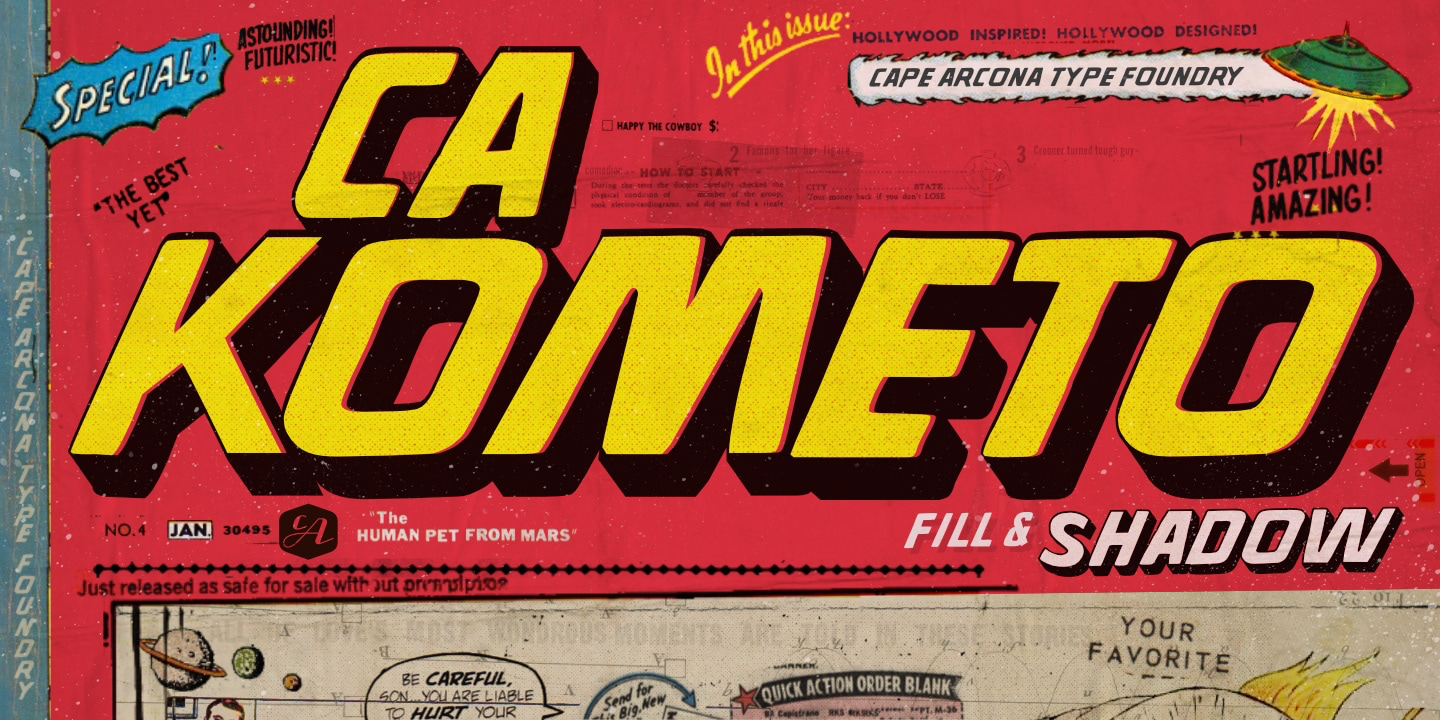
CA Kometo Font is perfect for space exploration graphics, astronomy education materials, sci-fi movie titles, planetarium presentations, rocket company branding, cosmic event promotions, space agency communications, astronomical observatory signage, interstellar gaming interfaces, and celestial-themed entertainment projects. This stellar typeface excels in applications where cosmic wonder and astronomical precision need to be communicated with otherworldly elegance and scientific accuracy that captures the infinite mystery of deep space exploration.
What makes CA Kometo Font exciting is its remarkable ability to embody the blazing trajectory and cosmic energy of comets streaking through the universe through its dynamically crafted letterforms that seem to trail stardust and celestial fire. The font captures the essence of astronomical phenomena with its sleek construction and orbital proportions that suggest the graceful paths of celestial bodies and the precise calculations of space navigation. Its carefully engineered character details and cosmic personality create an atmosphere of infinite possibility that resonates with astronomers, space enthusiasts, and visionaries who dream of exploring the final frontier.
The CA Kometo Font family typically includes Light, Regular, Medium, and Bold weights, each maintaining the signature celestial characteristics and astronomical precision. Some versions offer extended character sets with scientific notation, mathematical symbols for space calculations, and specialized astronomical characters. The family may also include condensed variants for technical documentation and display cuts optimized for maximum visual impact in space-themed applications requiring stellar presentation quality.
Whether you're developing space technology brands, astronomical educational materials, or cosmic entertainment content, CA Kometo Font Free Download delivers the perfect celestial brilliance your universe-spanning projects deserve. Its comet-inspired character and astronomical styling make it an essential tool for space agencies, planetariums, and science educators working in astronomy, space exploration, and cosmic education sectors where authentic stellar energy and scientific credibility are fundamental to inspiring wonder about our place in the cosmos.